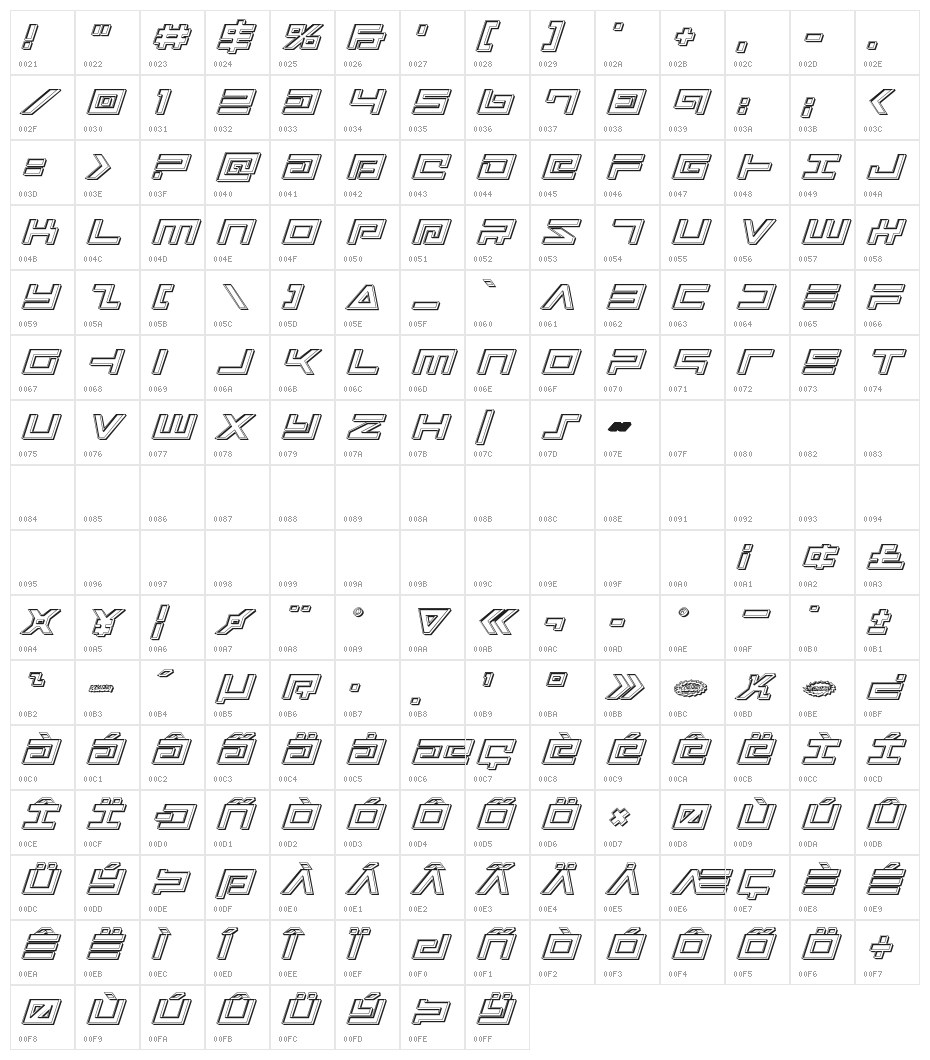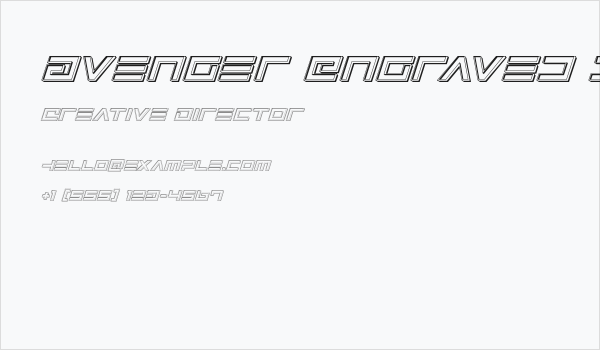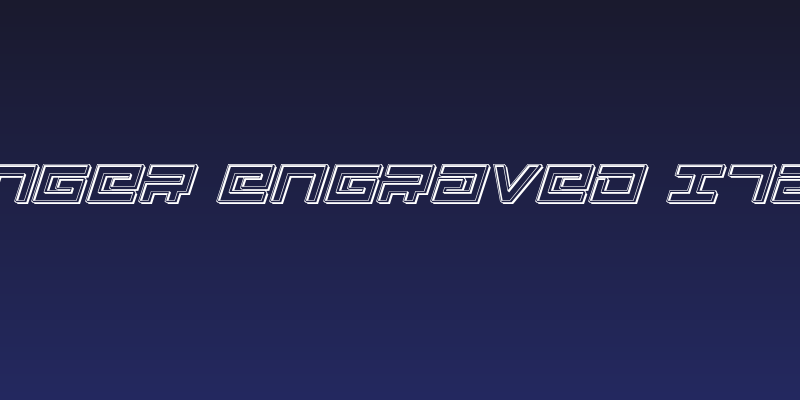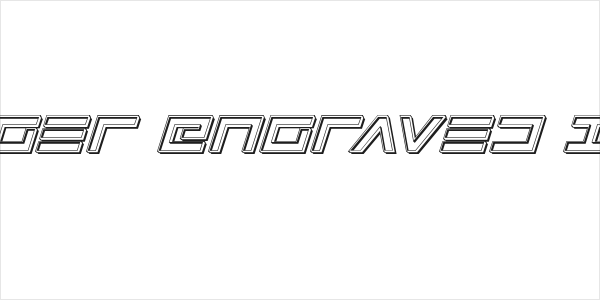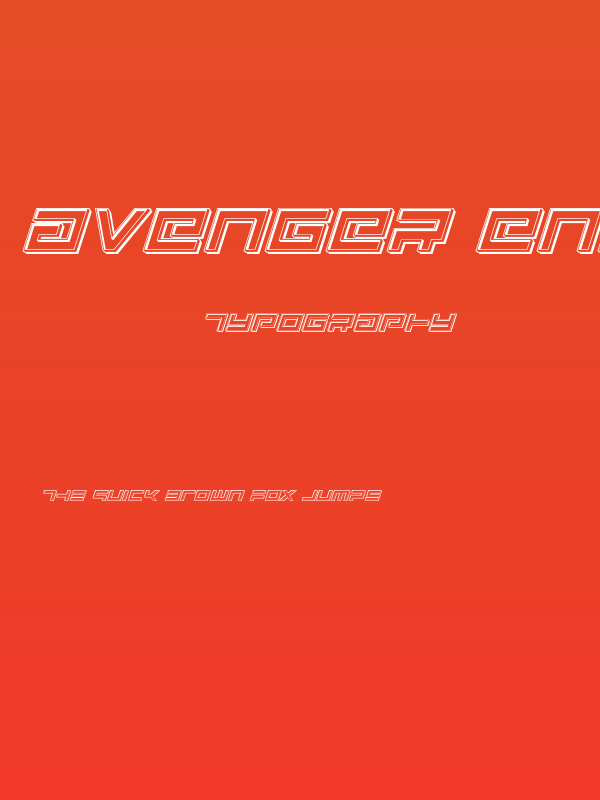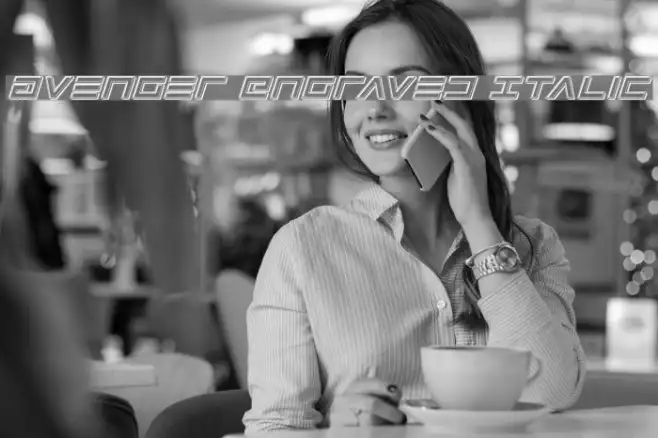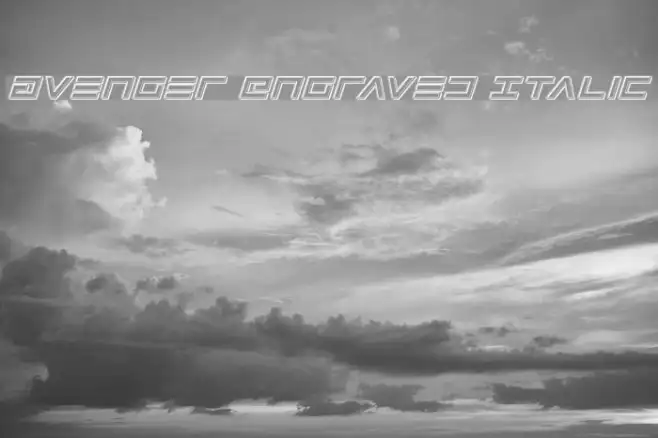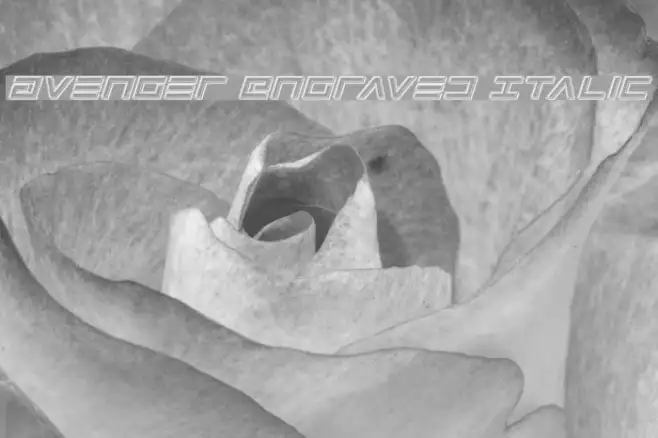
Avenger Engraved Italic Font
Avenger Engraved Italic Description
This font features a bold, futuristic design with an engraved, three-dimensional appearance. The italicized style adds a dynamic and forward-leaning aspect, enhancing its modern appeal. Each character is outlined with a double line, creating a sense of depth and movement. The geometric shapes and sharp angles contribute to its high-tech aesthetic, making it suitable for projects that require a strong, impactful visual presence. The font maintains a consistent weight and width across all characters, ensuring readability and uniformity.
| Proposed Projects | Ideal for sci-fi themed designs, technology branding, video game titles, and movie posters. |